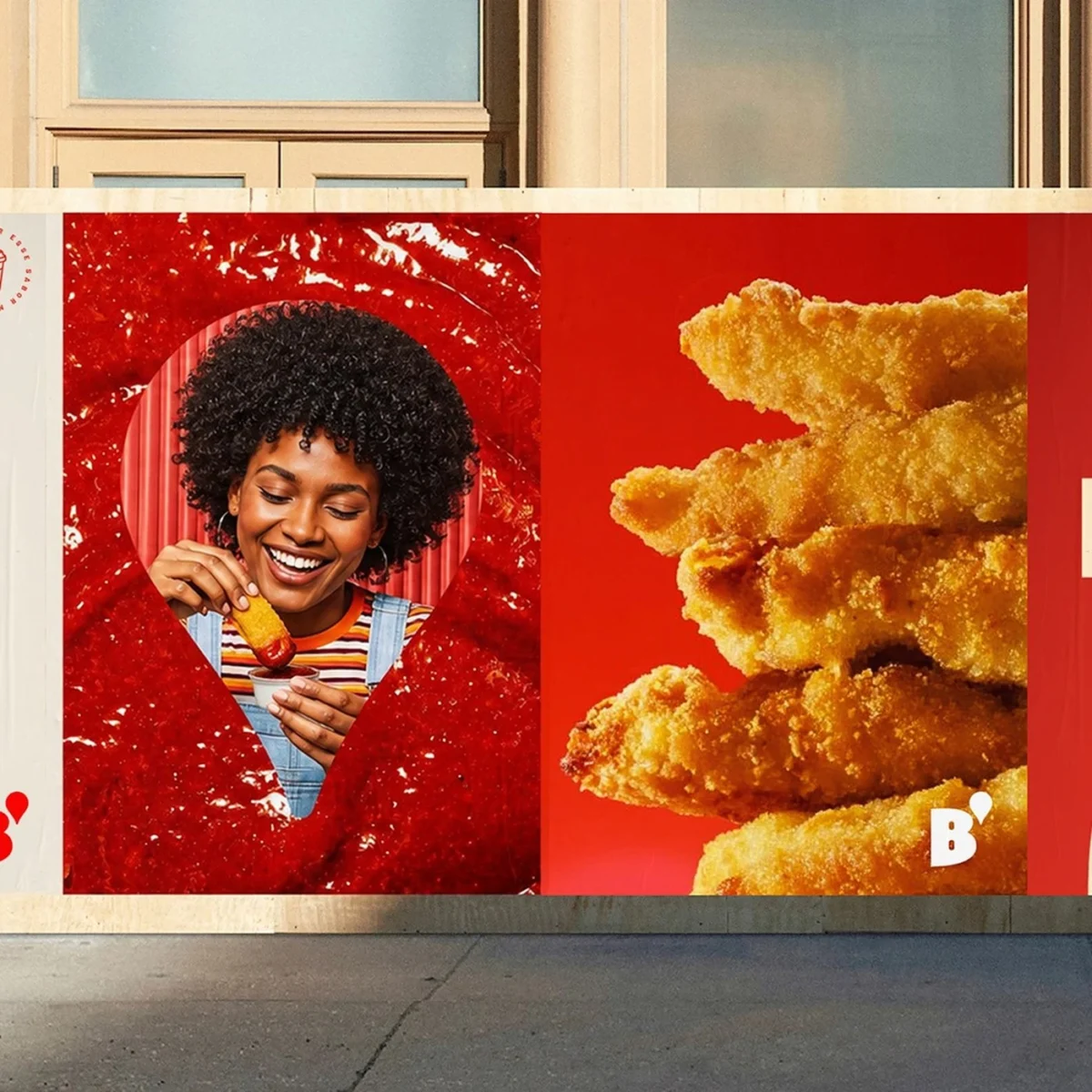
On September 18, 2026, the Brazilian fast-food landscape witnessed a significant brand evolution with the official launch of "Bob’s Display," a custom typography system meticulously crafted by the renowned Rio de Janeiro-based studio Plau Design. Commissioned by the advertising agency Artplan, this innovative typeface family reinterprets the classic curves and nostalgic charm of Bob’s, Brazil’s first fast-food chain, into a versatile and visually striking design engineered for contemporary retail environments. The project, led by a distinguished type team comprising Carlos Mignot, Lu Leitenperger, and Rodrigo Saiani, represents a strategic endeavor to infuse the brand with renewed vitality while honoring its deep-rooted cultural legacy.
A Legacy Reimagined: Bob’s Enduring Presence in Brazilian Culture
Typography Design: Bob's Display Typeface by Plau Design
Bob’s, established in 1952, holds an unparalleled position in the history of Brazilian fast food. Predating the arrival of international giants, it pioneered the quick-service restaurant concept in the nation, quickly becoming synonymous with American-style burgers, fries, and its iconic milkshakes. Over the decades, Bob’s has expanded its footprint to more than a thousand stores across Brazil, embedding itself deeply into the collective memory and culinary habits of generations. Its distinctive curved logo and signature menu items have not merely served as commercial offerings but have actively shaped Brazilian food culture, influencing consumer expectations and local industry trends.
However, in an increasingly competitive globalized market, where both established international chains and emergent local concepts vie for consumer attention, brand differentiation becomes paramount. Maintaining relevance and appeal, particularly to younger demographics accustomed to sophisticated digital experiences, necessitated a thoughtful brand refresh. This imperative underscored the decision to invest in a bespoke typeface – a subtle yet profoundly impactful element of brand identity that communicates character, professionalism, and distinctiveness across all touchpoints.
The Strategic Imperative: Brand Revitalization in a Dynamic Market
Typography Design: Bob's Display Typeface by Plau Design
Artplan, one of Brazil’s leading advertising agencies, recognized the strategic value of a comprehensive visual overhaul for Bob’s. Their vision extended beyond superficial cosmetic changes, aiming for a foundational redesign that would resonate with both loyal patrons and new customers. The agency understood that typography, often overlooked by the casual observer, is a powerful silent ambassador for a brand. It conveys tone, heritage, and modernity simultaneously. The selection of Plau Design, known for its expertise in custom type solutions and its deep understanding of Brazilian design sensibilities, was a deliberate choice to ensure the project’s success. Plau Design’s portfolio, characterized by a blend of artistic innovation and practical application, made them an ideal partner for translating Bob’s rich history into a contemporary visual language.
The Genesis of Bob’s Display: A Design Philosophy Rooted in Heritage
Typography Design: Bob's Display Typeface by Plau Design
The collaborative journey between Artplan and Plau Design commenced with an intensive research phase, delving into Bob’s extensive archives, analyzing its historical marketing materials, and studying the evolution of fast-food signage and design. The core challenge was to encapsulate the "friendly spirit" and "warm mood of classic roadside signs" that defined Bob’s early years, while simultaneously crafting a typeface that felt fresh, legible, and adaptable for modern digital and physical applications.
Carlos Mignot, lead type designer at Plau Design, elaborated on the initial conceptualization: "Our goal was not merely to create a font, but to distill the essence of Bob’s – its pioneering spirit, its comforting familiarity, and its playful energy – into letterforms. We looked at the curves of their iconic logo, the inviting swirl of their milkshakes, and the robust simplicity of vintage diner signs for inspiration. It was about creating a typeface that felt inherently Bob’s, an organic extension of its identity rather than an imposed design." Lu Leitenperger added, "We wanted the letters to carry a sense of fun and approachability, reflecting the joy of a classic burger chain experience. Every curve, every stroke, was designed to evoke that rich fast-food history, bringing it seamlessly into modern life."
The design team meticulously translated these conceptual frameworks into tangible typographic elements. The process involved countless sketches, digital renditions, and iterative refinements. Rodrigo Saiani highlighted the balance between artistic expression and practical utility: "While aesthetics were crucial, the typeface also needed to be highly functional. It had to perform exceptionally across diverse media – from large outdoor billboards to intricate menu designs, and even small digital interfaces. Readability, scalability, and brand consistency were non-negotiable requirements."
Typography Design: Bob's Display Typeface by Plau Design
Anatomy of a Typeface: Deconstructing Bob’s Display
The "Bob’s Display" typeface family is a testament to Plau Design’s commitment to detail and functionality. It comprises five distinct weights, ranging from a delicate Light to a commanding Black, offering designers a broad spectrum of expressive possibilities. This variation allows for dynamic visual hierarchies and ensures the typeface can convey different levels of emphasis and tone.
• Weight Progression and Form: The heavier weights of Bob’s Display are particularly striking, characterized by their thick stems, tight counters, and exaggerated rounded curves. These forms are not arbitrary; they are directly inspired by the "smooth flow of milkshakes and sauces," creating a visual metaphor that reinforces the brand’s culinary offerings. The soft, organic shapes lend an approachable and inviting quality, differentiating it from more rigid, geometric typefaces common in contemporary branding.